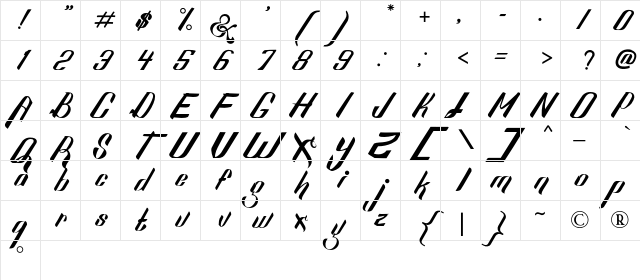
Sexy Shout Free Font
Foundry: fey design
Designer: ferry hadriyan
Design Context for Sexy Shout
Sexy Shout is a composed and adaptable typeface that performs quietly and consistently across a wide range of design contexts.